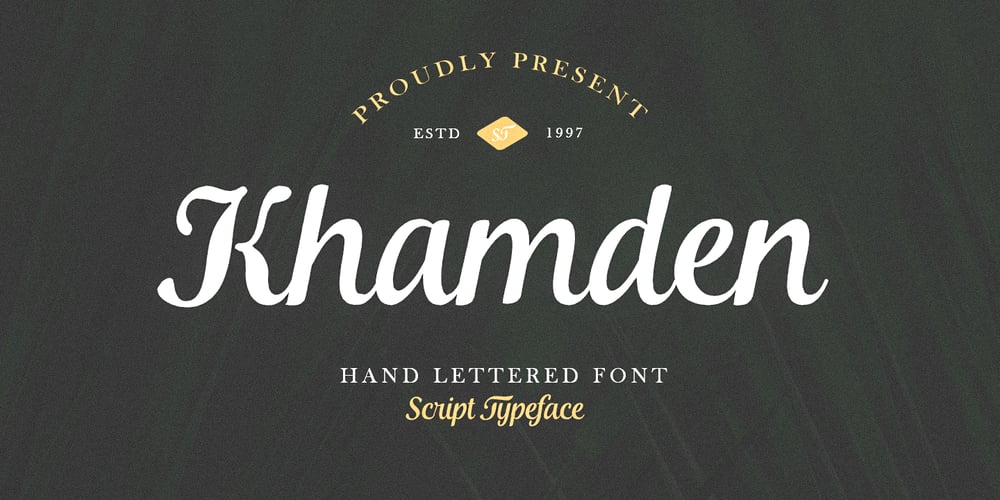
Khamden Script Font Family was designed by Riski Firmana and published by Solidtype. Khamden Script contains 1 styles and family package options. Khamden is a thick handmade font of beautiful bold type with an authentic touch. This includes OpenType features with encoded PUA such as alternatives and ligature. This font is perfectly made to be applied especially in logos, and various other formal forms such as invitations, labels, logos, magazines, books, greeting / wedding cards, packaging, fashion, makeup, stationery, novels, labels, or any type from advertising purposes.Feature: uppercase & lowercase letters numbers and punctuation marks multilingual PUA is coded We highly recommend using a program that supports OpenType features and the Glyphs panel like many Adobe and Corel Draw applications, so you can see and access all Glyph variations. Thank you! – Don’t hesitate to ask me